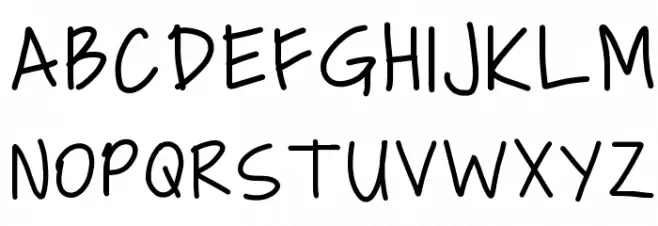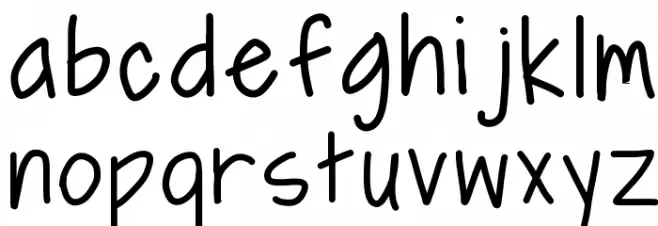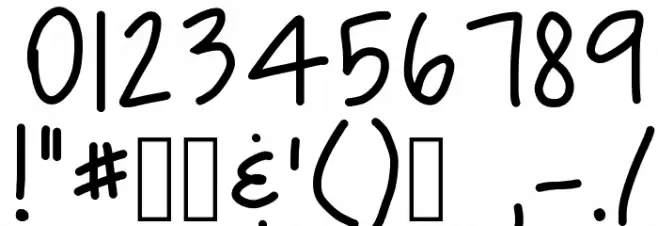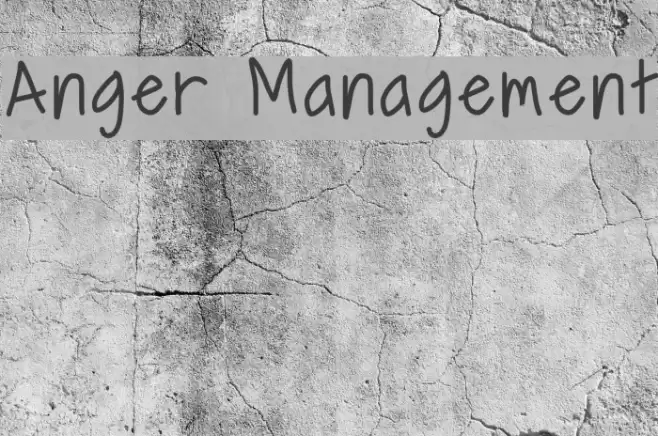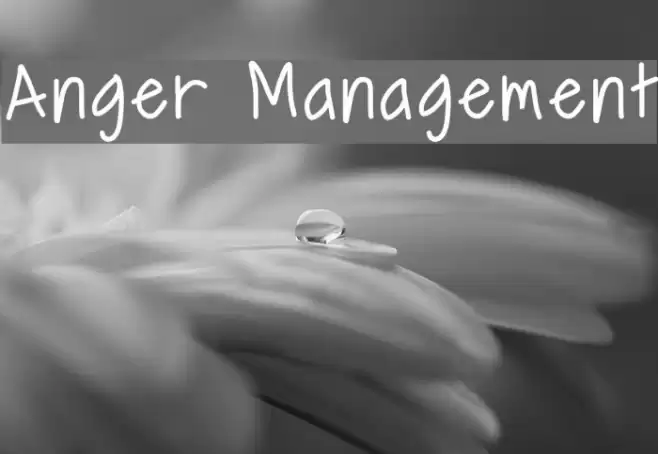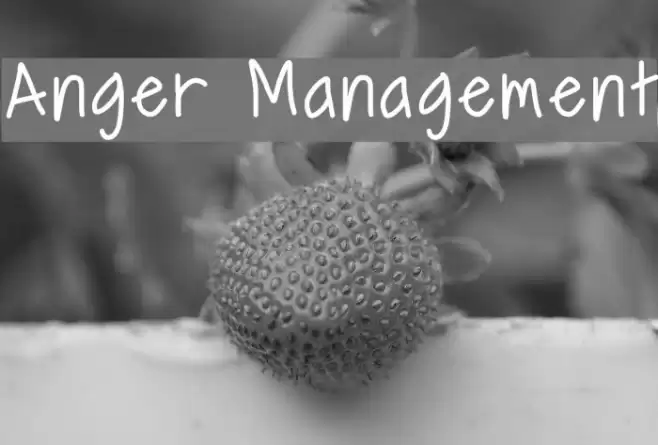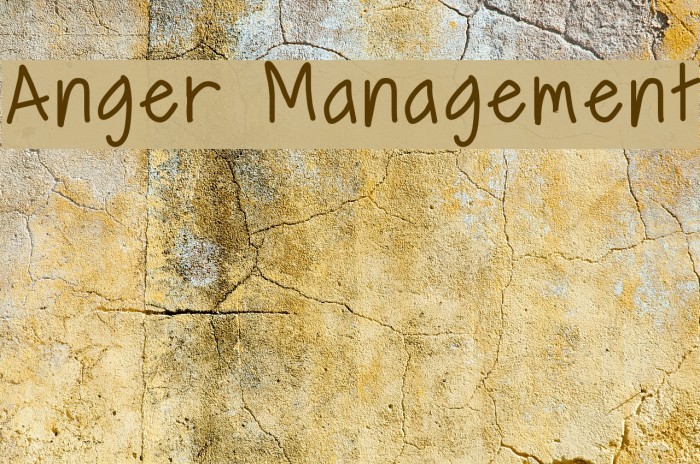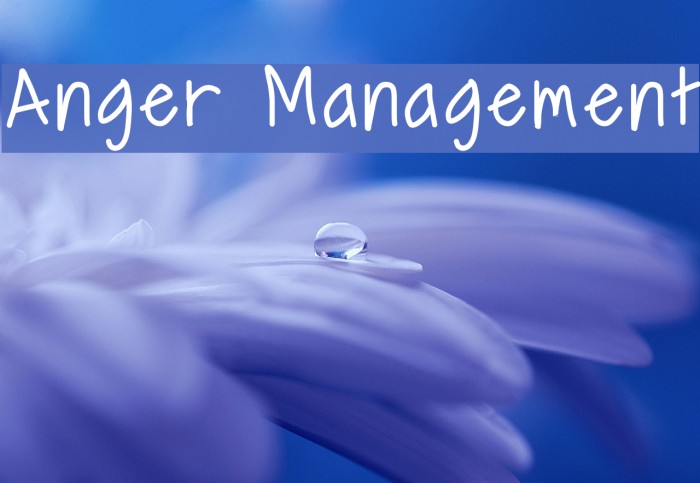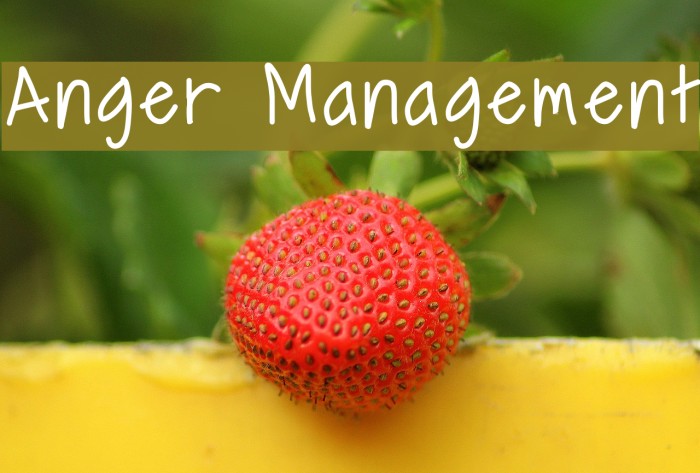
Anger Management
This font features a playful and informal handwritten style, characterized by its casual and slightly irregular letterforms. The uppercase and lowercase letters maintain a consistent flow, with rounded edges and a friendly appearance. The numerals and special characters follow the same informal aesthetic, making the font suitable for creative and lighthearted projects. The strokes are consistent in width, providing a uniform look across all characters. This font exudes a sense of approachability and creativity, making it ideal for projects that aim to convey a personal touch.
A playful, informal handwritten font with rounded edges and consistent strokes.
- Proposed Projects: Ideal for greeting cards, children's books, casual branding, and social media graphics.
- Overall Style: Casual, Playful
- Use Case: Headlines, Informal text, Creative projects